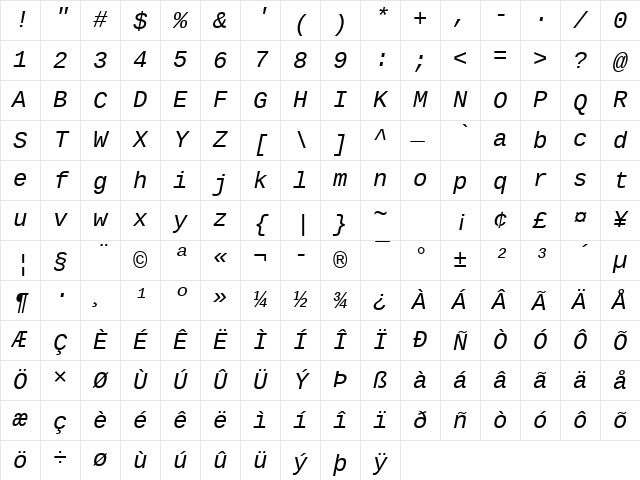
Liberation Mono Italic
Foundry: Ascender Corporation
Designer: Steve Matteson
Complete Liberation Mono Italic glyph index. Displaying only characters natively supported by Liberation Mono Italic font.
Design Context for Liberation Mono
Liberation Mono uses fixed-width spacing throughout, giving it the structured, systematic character associated with coding environments and technical documentation. The slanted form adds forward momentum and visual energy.
Pro Tip: Use Liberation Mono with slightly increased line-height for extended reading - fixed-width spacing can feel dense in longer passages without extra breathing room.